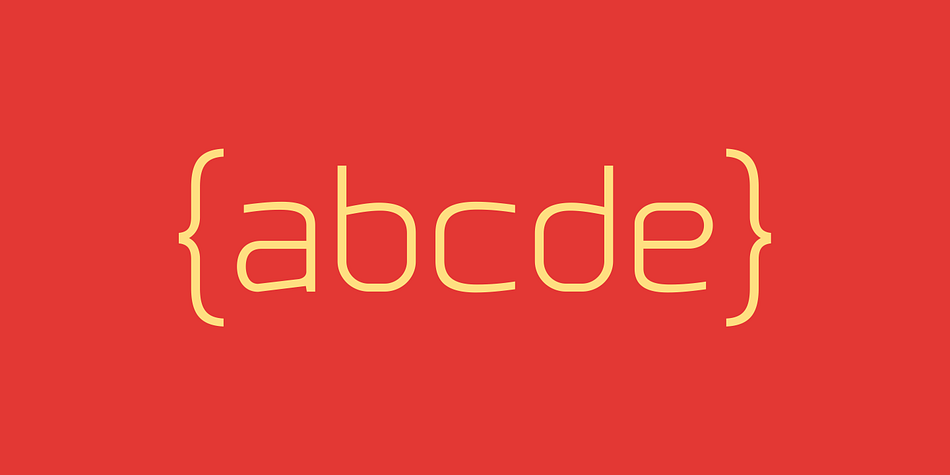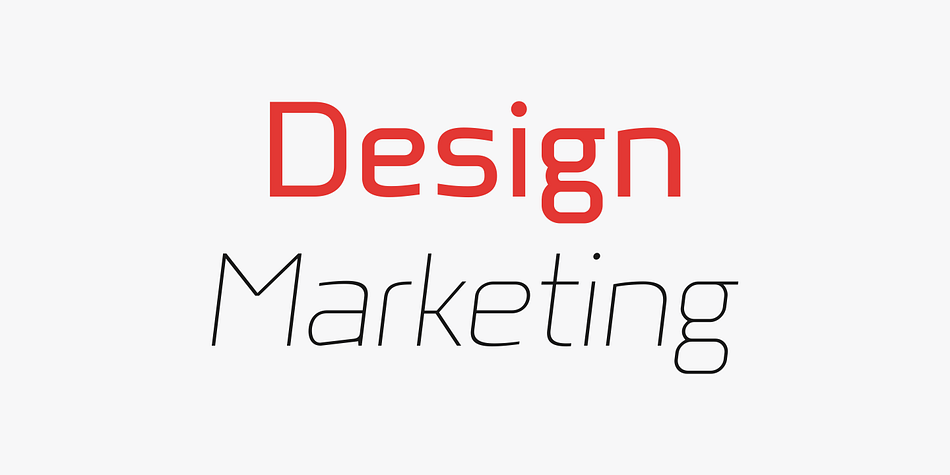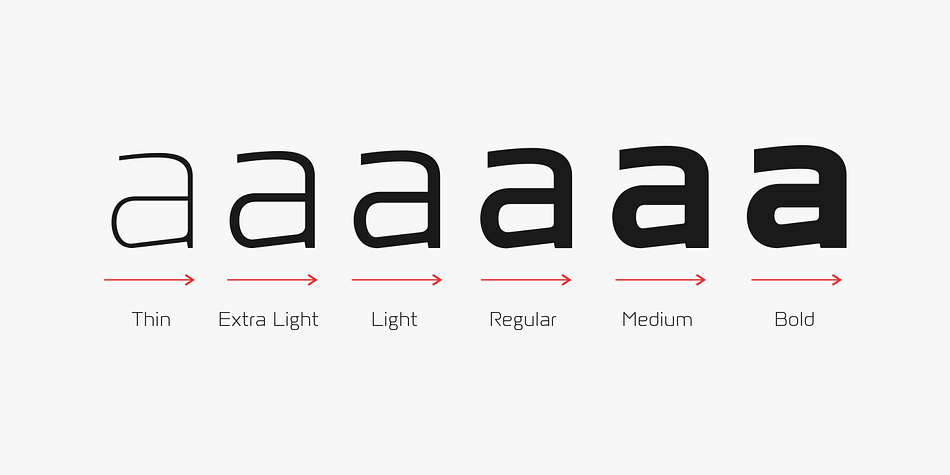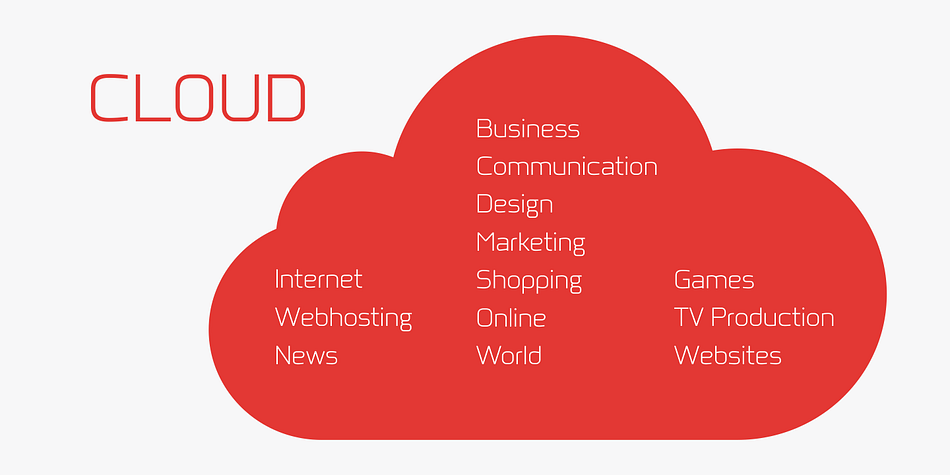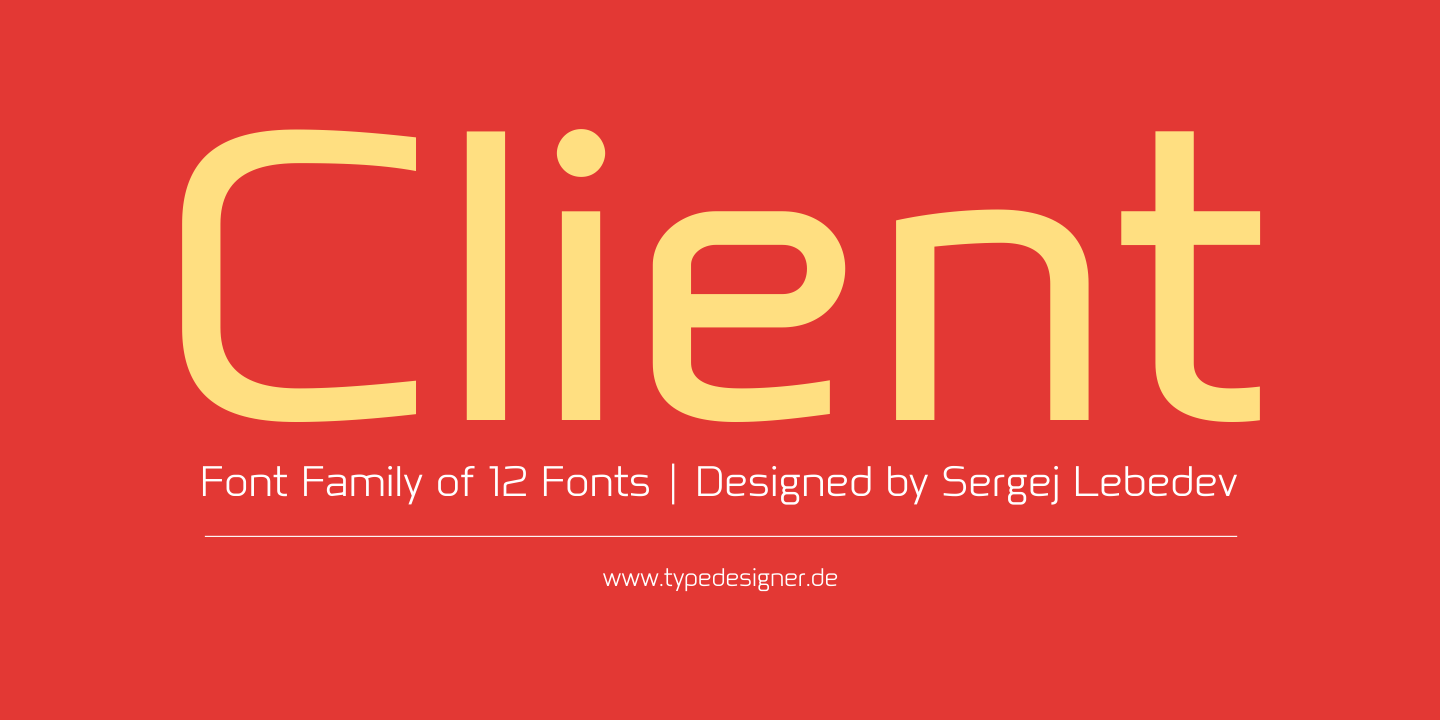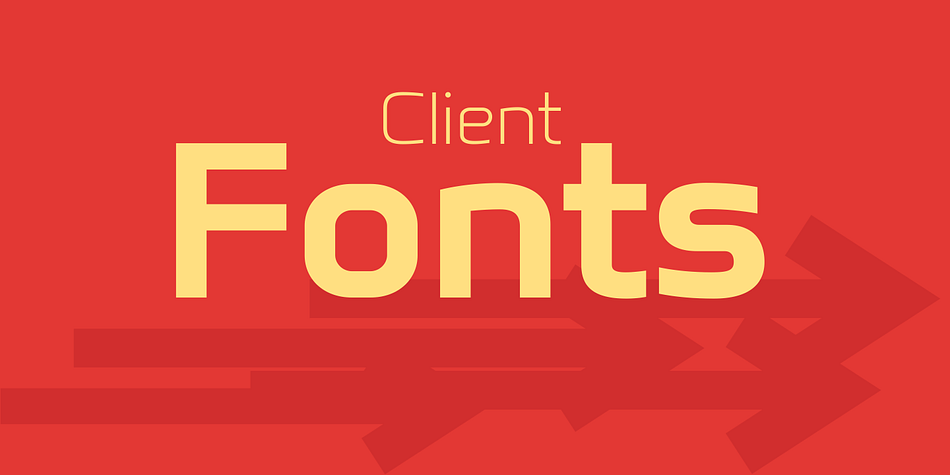
Designed by Sergej Lebedev, Client is a sans serif font family. This typeface has twelve styles and was published by Sergej Lebedev.
Client is а modern Square Sans font family of 12 fonts with a distinctive character and modern form language.
Client is the perfect font family for graphic design, corporate design, communication design, branding, packaging, publishing and web use. The each font contains a set of 1.048 characters - supporting 212 different languages.
The Client fonts have 27 OpenType Futures and include a large number of stylistic alternate characters. Each Client font was manually hinted to ensure great web and desktop performance.